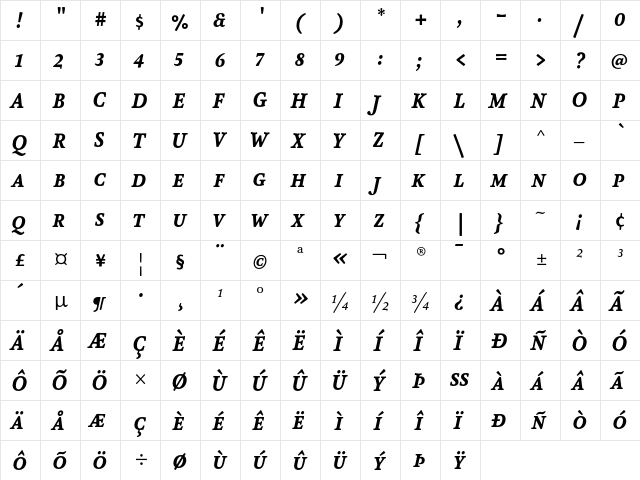
AtmaSerifLF-BlackItalicQC Regular Font Preview
AtmaSerifLF-BlackItalicQC Regular
AtmaSerifLF-BlackItalicQC Regular Font Details
Design Context for AtmaSerifLF-BlackItalicQC Typeface
AtmaSerifLF-BlackItalicQC brings classic typographic sensibility to the table — its serifs and measured letterforms reflect centuries of print heritage. The dynamic lean of this cut emphasises speed and emphasis in any layout.